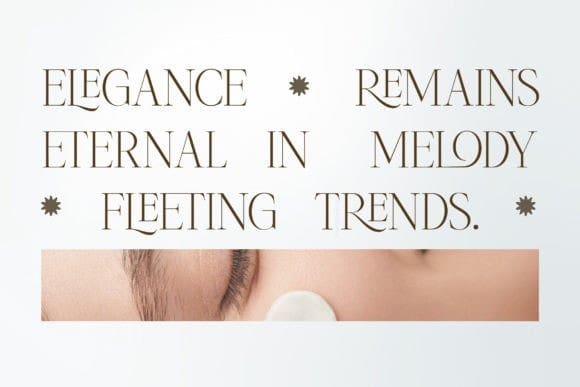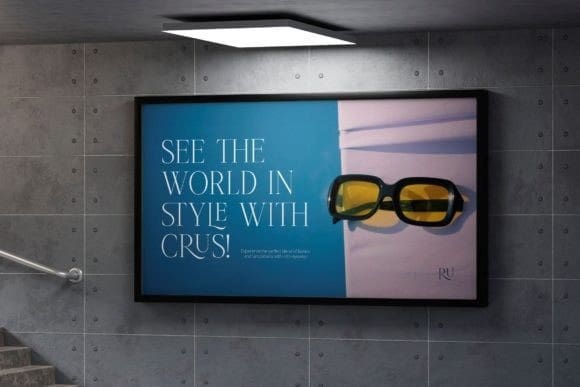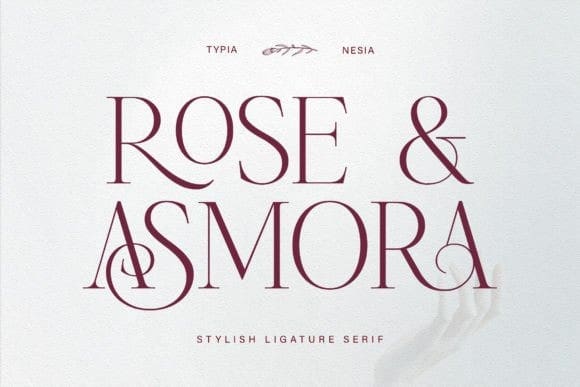
Rose And Asmora Font
Rose And Asmora Font is a Stylish Ligature Serif font that exudes elegance and beauty with its intricate ligatures and stylish serifs. It strikes the perfect balance between classic charm and modern appeal, making it suitable for a wide range of design projects, such as branding and logo design, editorial design, wedding invitations, posters, product packaging, event invitations and announcements, digital marketing campaigns, and more, where a touch of style and Elegance is desired.